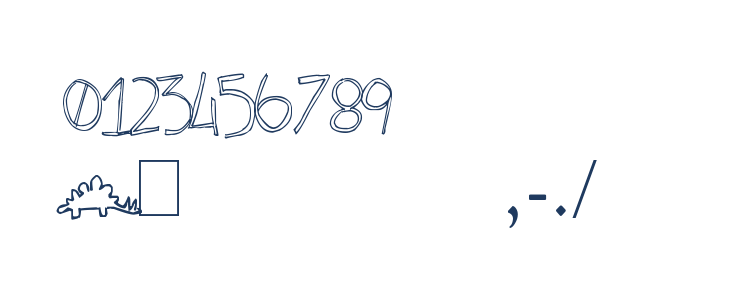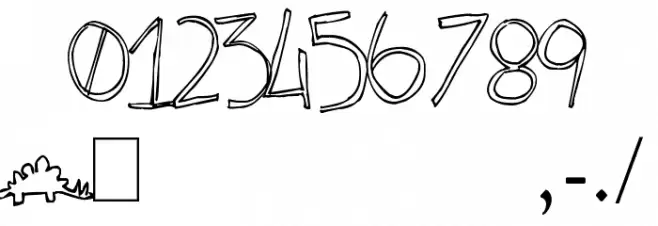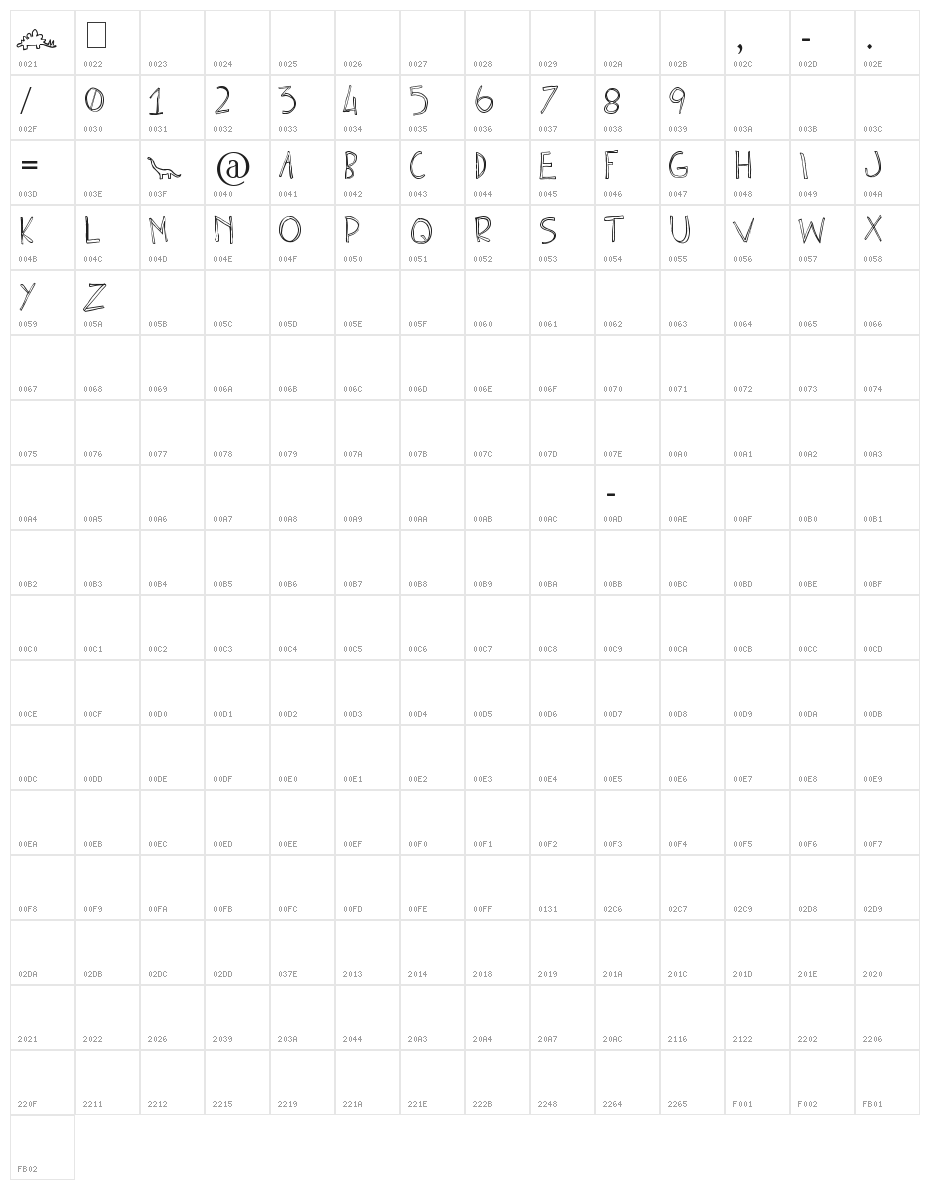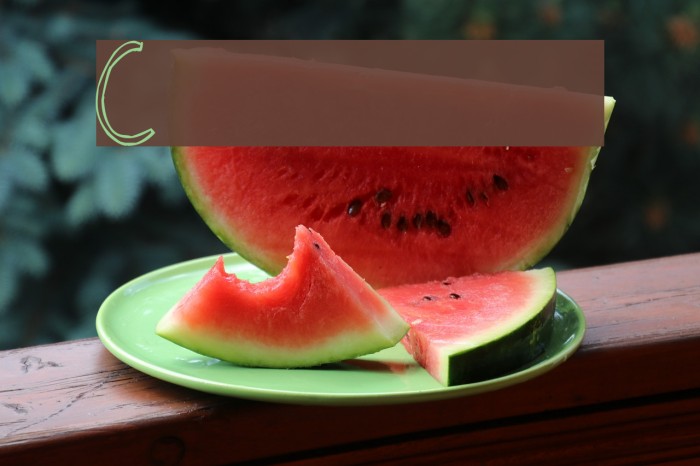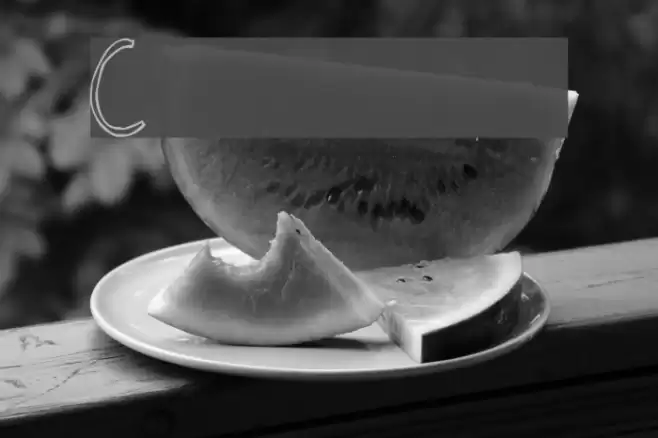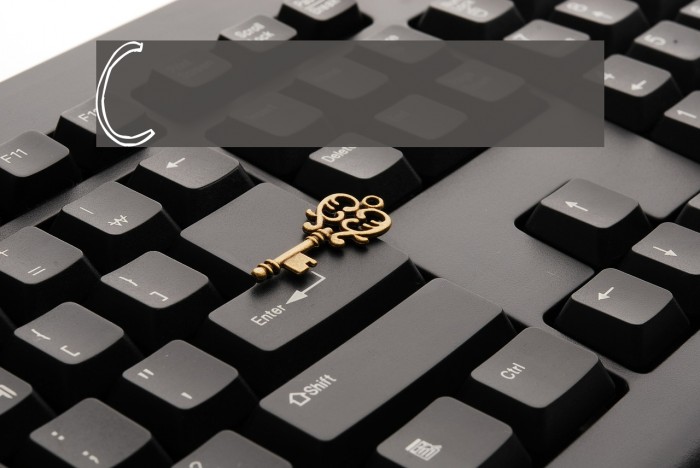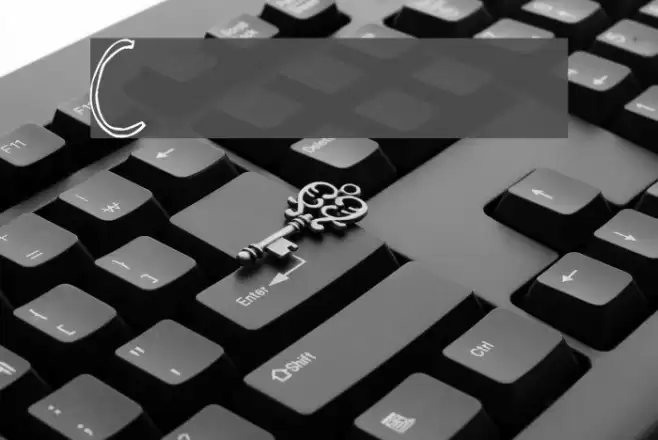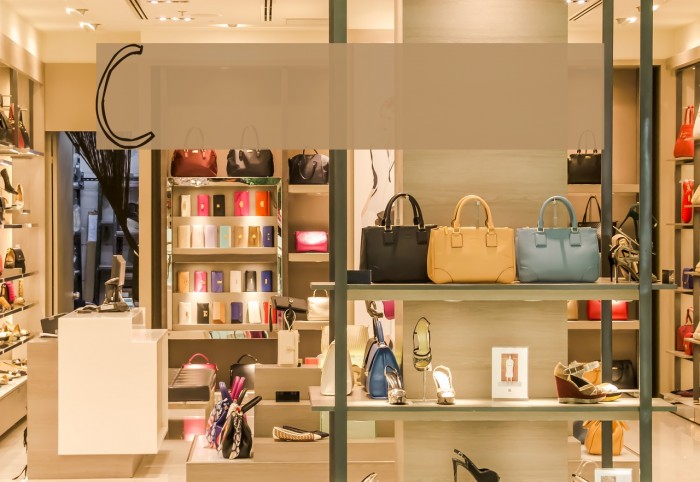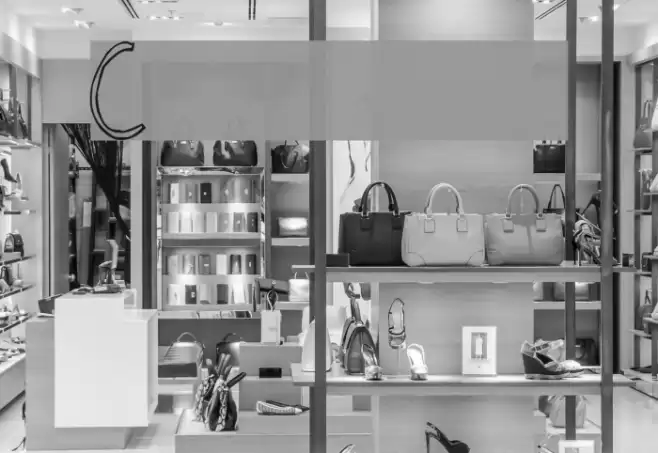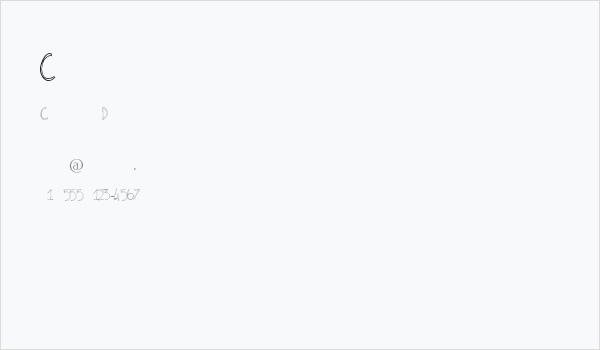
Clono uno Font
Clono uno Description
This font features a playful and whimsical design with a hand-drawn aesthetic. The letters are characterized by uneven strokes and a slightly irregular baseline, giving it a casual and informal appearance. The uppercase letters are tall and narrow, while the lowercase letters maintain a consistent style, enhancing the font's cohesive look. Numbers and special characters follow the same playful style, making it suitable for creative and fun projects. The font's unique charm lies in its imperfect lines and quirky details, which add a sense of personality and creativity.
| Proposed Projects | Ideal for children's books, creative posters, greeting cards, and playful branding projects. |